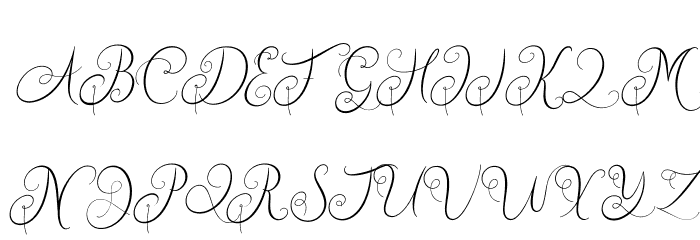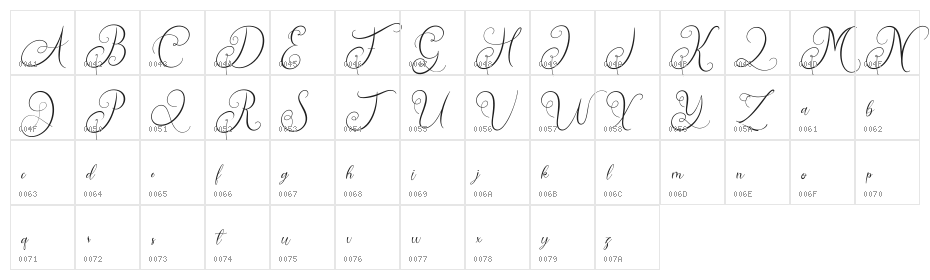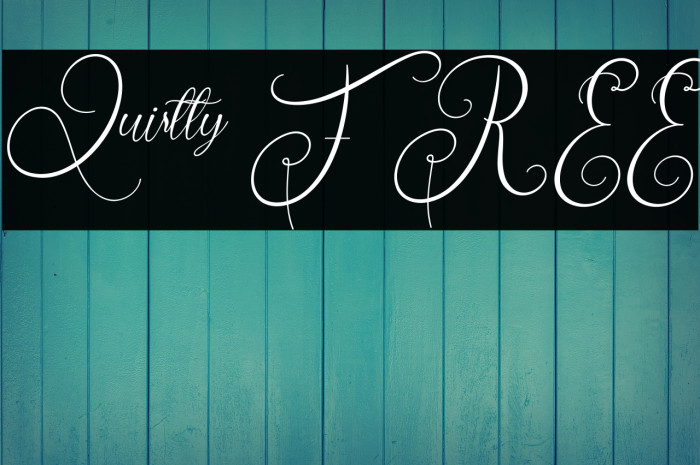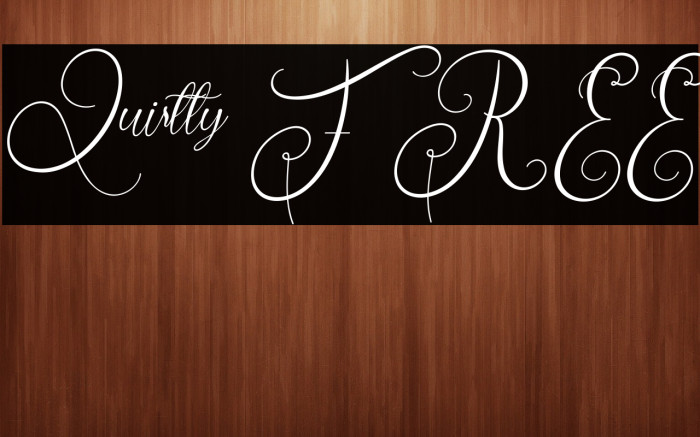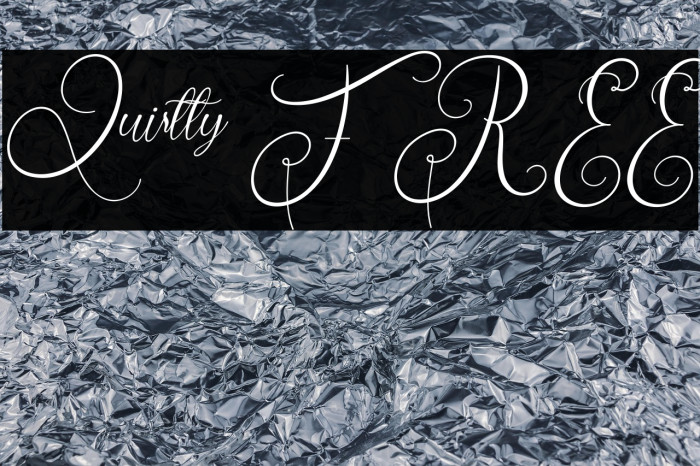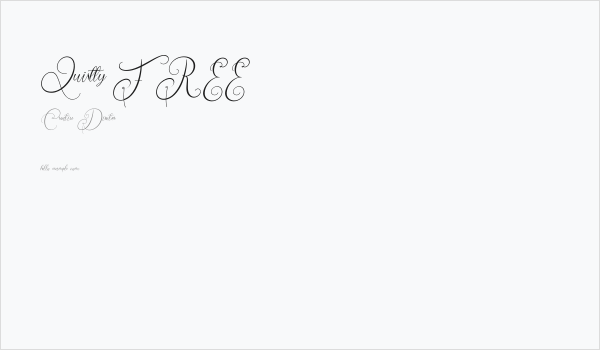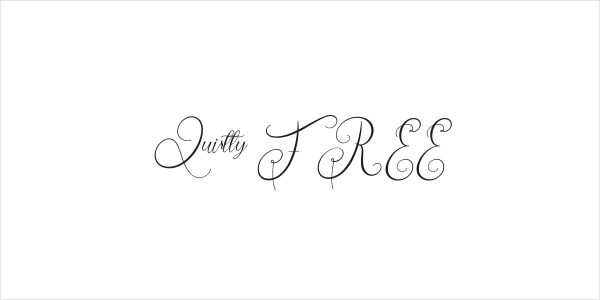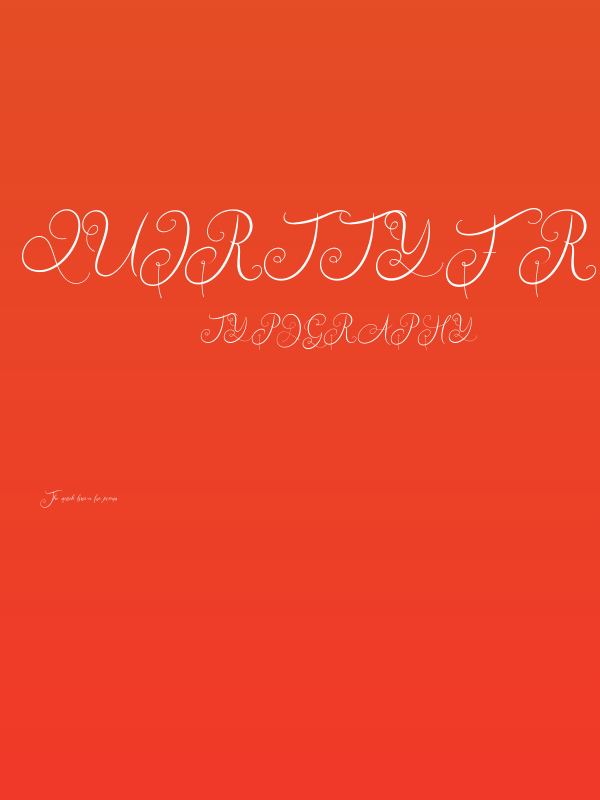
Quirtty FREE Font
Quirtty FREE Description
This font exudes elegance and sophistication with its intricate and flowing script style. The uppercase letters are adorned with elaborate swirls and loops, giving them a decorative and ornate appearance. The lowercase letters maintain a graceful and fluid form, complementing the uppercase with their smooth curves. The overall design is reminiscent of classic calligraphy, making it ideal for formal invitations, branding, and decorative purposes. The font's delicate lines and artistic flair make it stand out, capturing attention with its refined beauty.
| Proposed Projects | Ideal for wedding invitations, luxury branding, greeting cards, and decorative headings. |